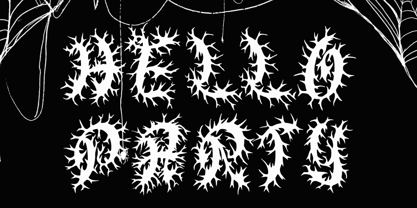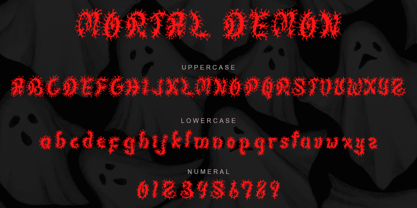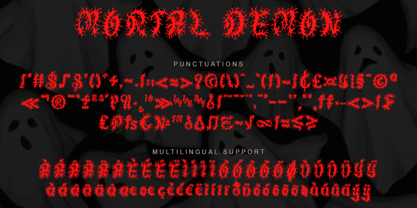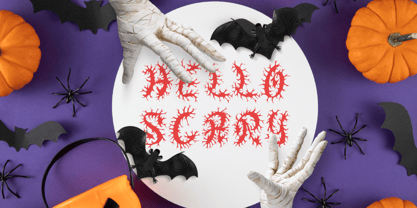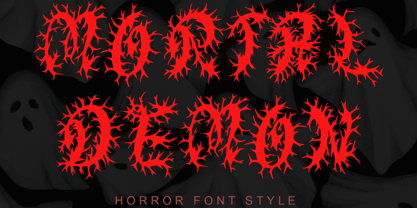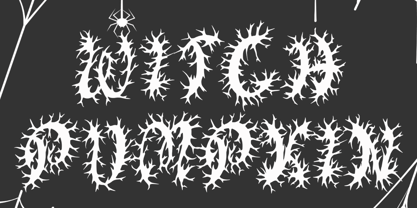
Mortal Demon
by Yoga Letter
The Mortal Demon Font Family was designed by Isroni Yoga Prasetya and published by Yoga Letter. Mortal Demon contains 1 styles. More about this family
"Mortal Demon" is a horror and spooky font. It features uppercase and lowercase letters, numerals, punctuation, and multilingual support. It's perfect for Halloween, movie titles, Christmas, stickers, tattoos, back to school, teacher's day, book titles, magazines, and more.